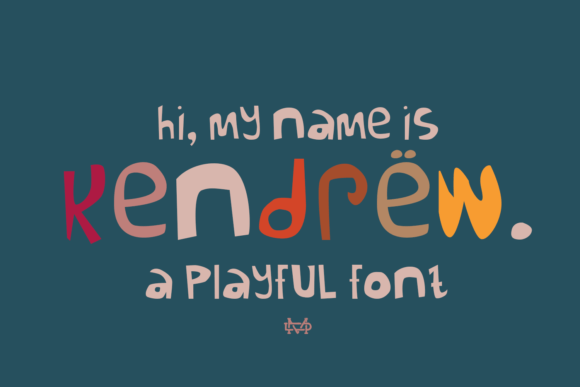
Dive into the whimsical world of Kendrew Font, a display font brimming with charm and playfulness, designed by the talented madeDeduk. This enchanting font captivates with its distinctive letterforms and an irresistible aura of joy, becoming the perfect choice for injecting an exuberant and vibrant spirit into your creative endeavors.
Step into a realm of imagination and creativity as you embrace Kendrew Font. With its captivating appearance, this font transforms ordinary text into captivating narratives, inviting children to embark on extraordinary journeys through the written word. Each character dances with delight, inspiring young minds to soar on the wings of their imagination, turning learning into an exhilarating adventure.
Kendrew Font possesses an undeniable charisma, making it the ideal companion for children's books, captivating posters, and playful packaging designs. Its inherent joyfulness effortlessly grabs attention, ensuring your message cuts through the noise and resonates with your audience. Unleash your creative spirit and watch as Kendrew Font weaves its magic, transforming mundane designs into captivating masterpieces that ignite smiles and capture hearts.
As you incorporate Kendrew Font into your designs, witness the remarkable transformation that unfolds. Websites, social media posts, and marketing materials are imbued with an infectious energy, captivating audiences with its playful essence. Logos and branding adorned with Kendrew Font radiate a sense of approachability and warmth, inviting customers to connect with your brand on a deeper level.
Embrace the boundless versatility of Kendrew Font, extending its influence across a multitude of creative projects. From whimsical invitations and greeting cards to eye-catching advertisements and captivating presentations, Kendrew Font adapts effortlessly, adding a touch of delight to every endeavor. Your designs will exude a sense of joy, leaving an unforgettable impression on all who encounter them.
As you delve into the realm of creativity with Kendrew Font as your trusted companion, prepare to be amazed by the transformative power it wields. Watch as your designs blossom into vibrant expressions of joy, leaving an enduring mark on the hearts of your audience. Let Kendrew Font be your guide, igniting smiles, fueling imaginations, and inspiring countless stories yet untold.